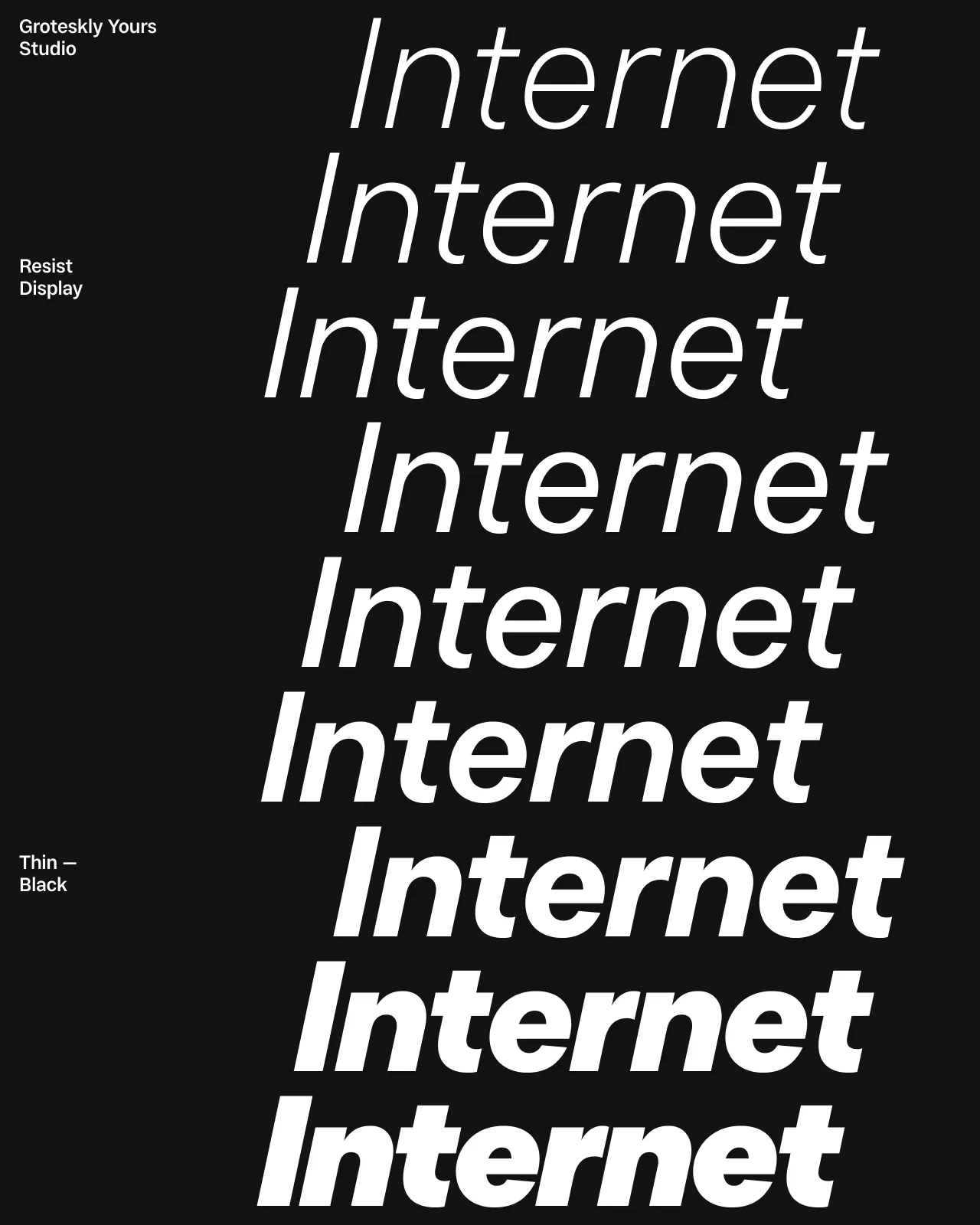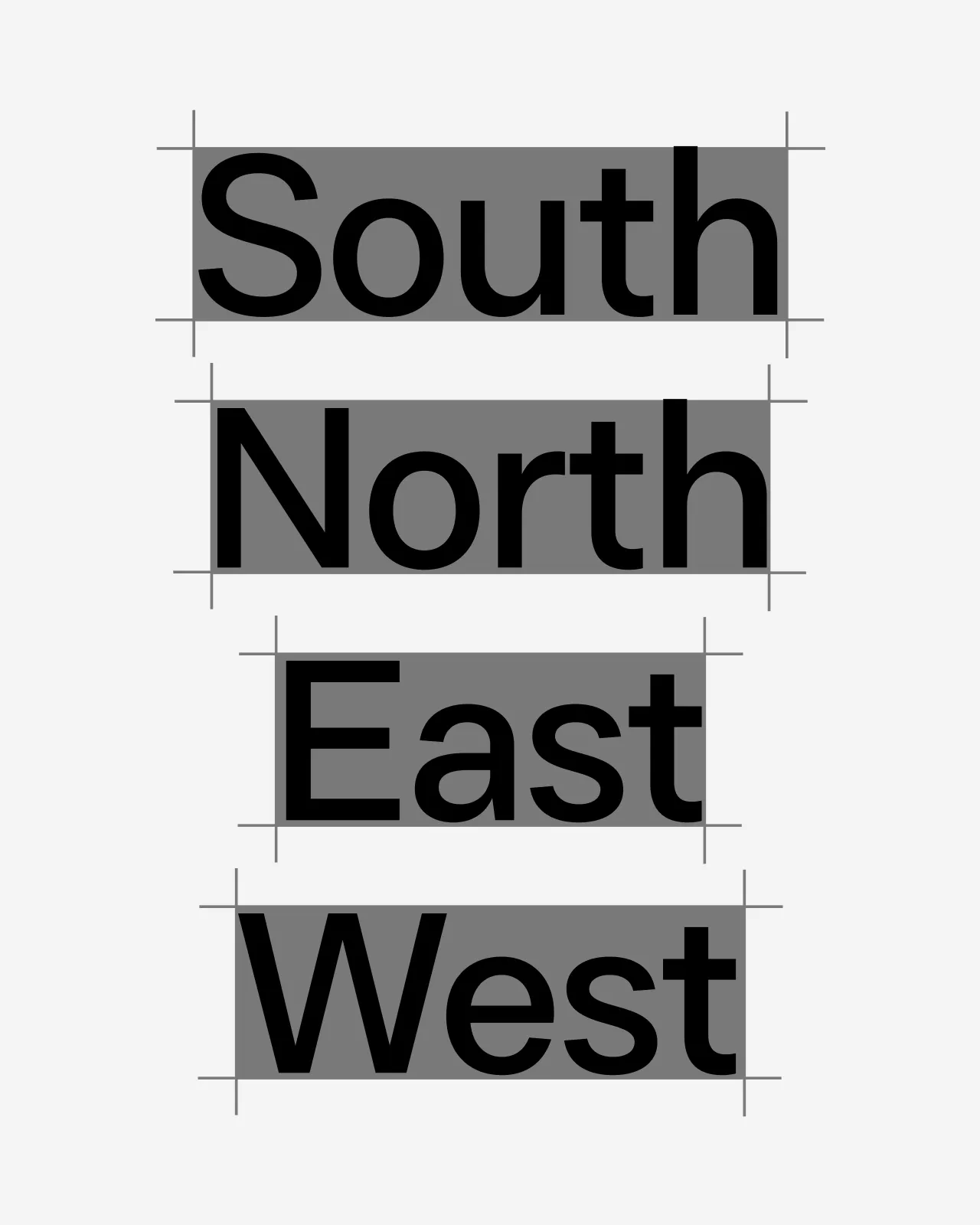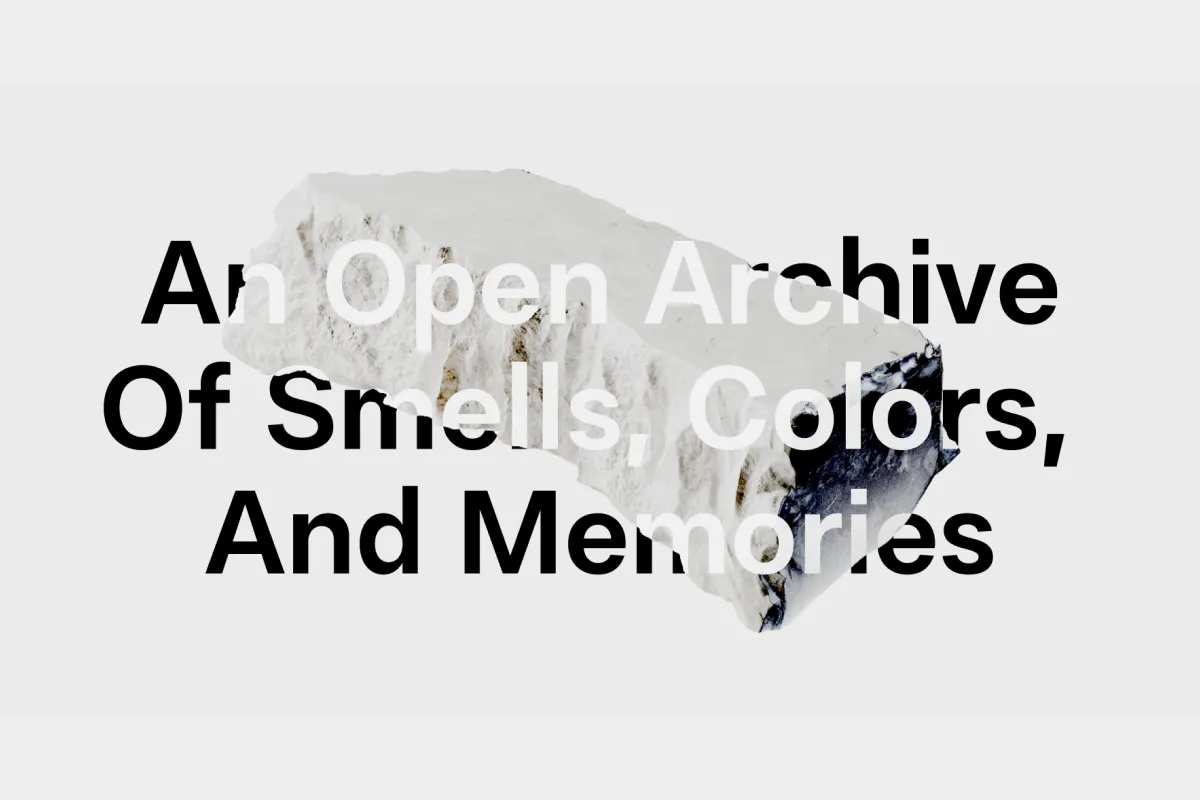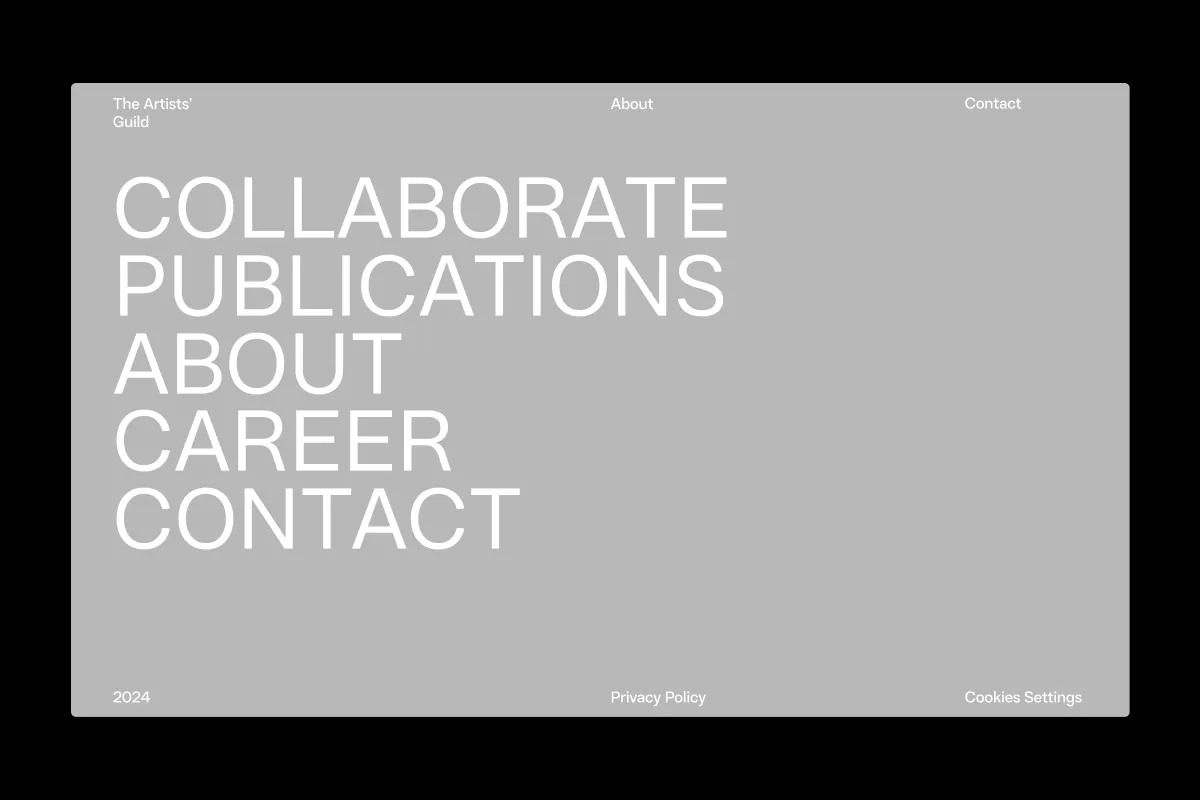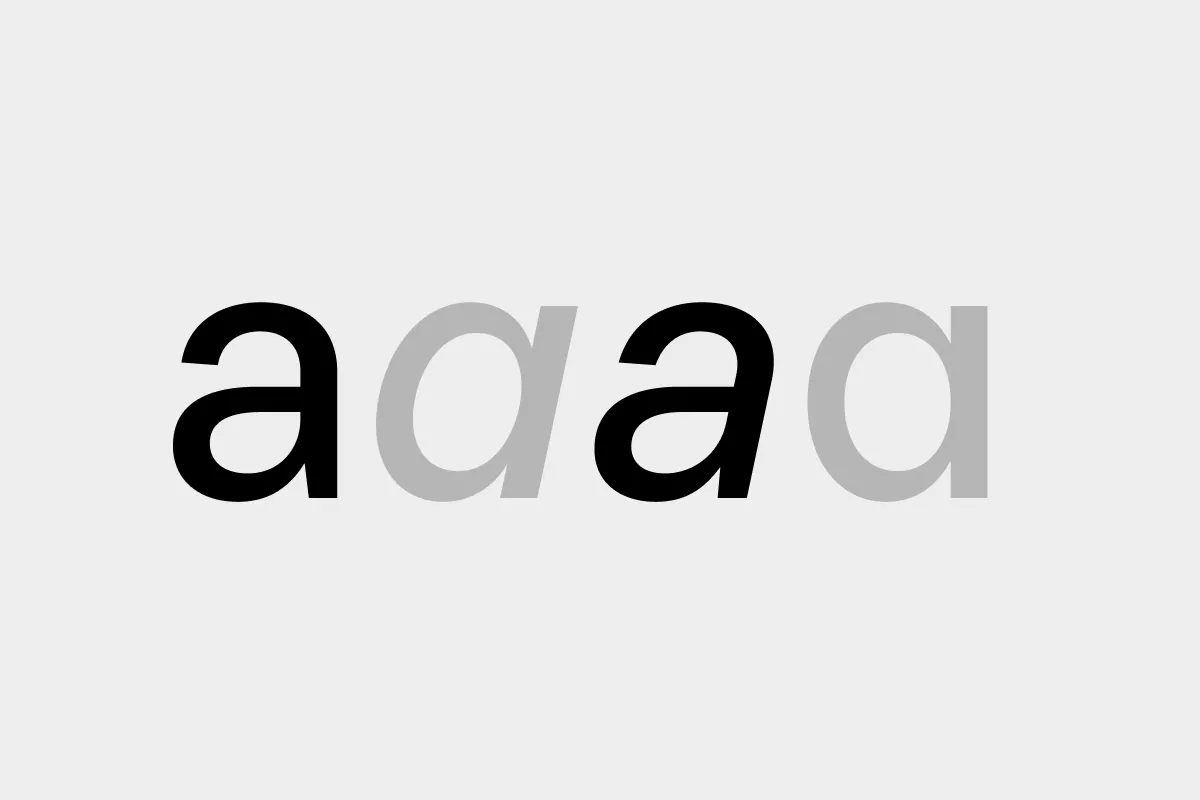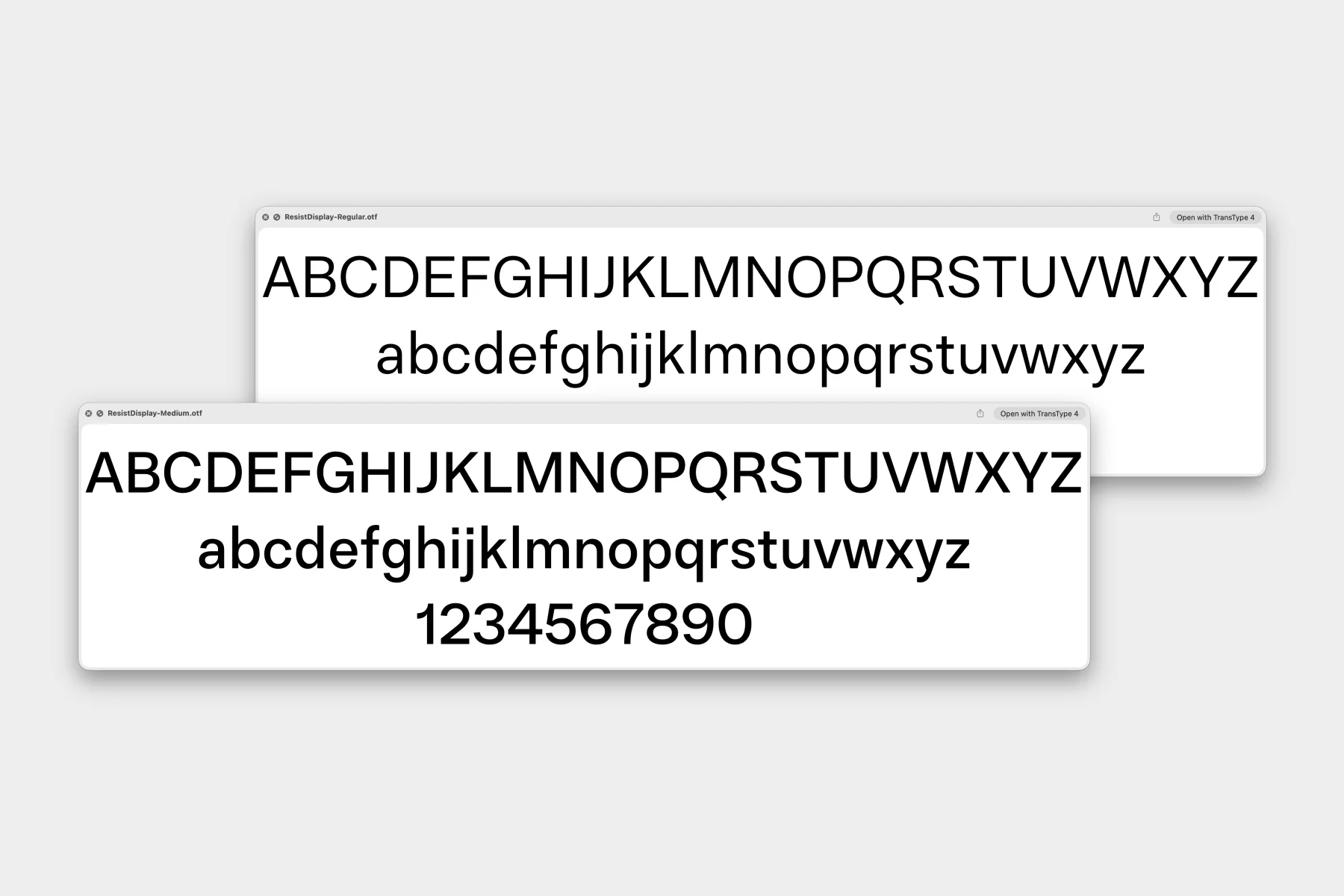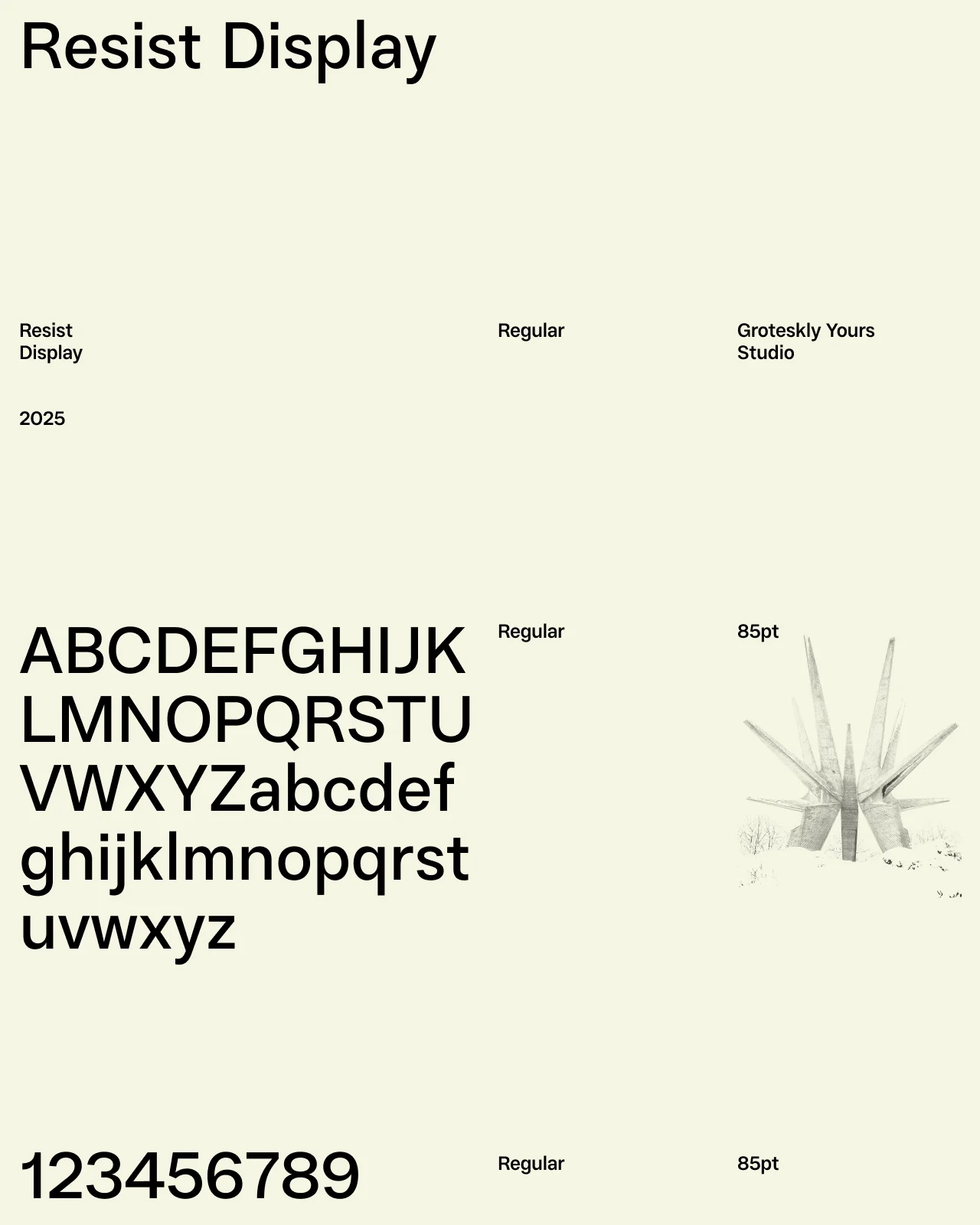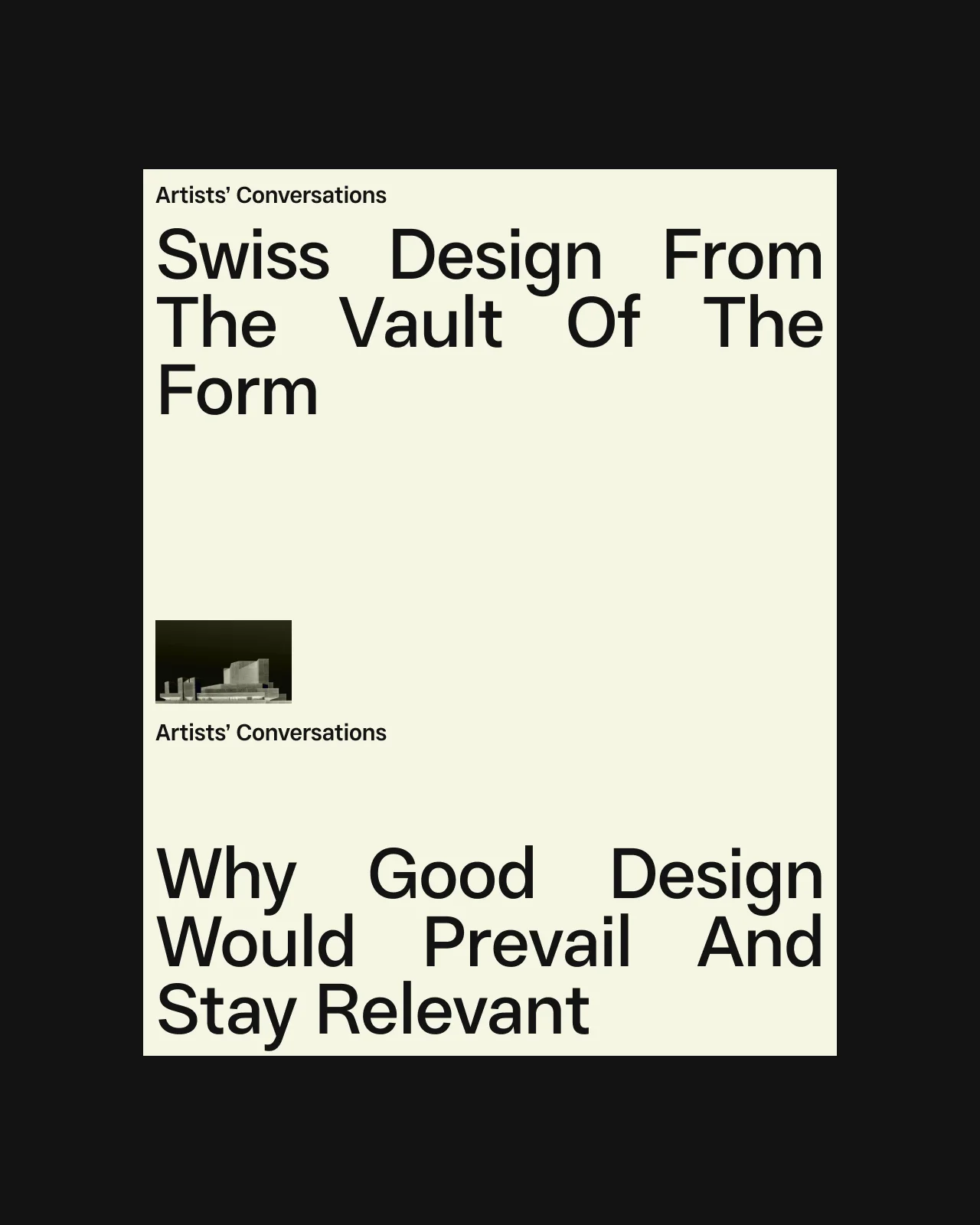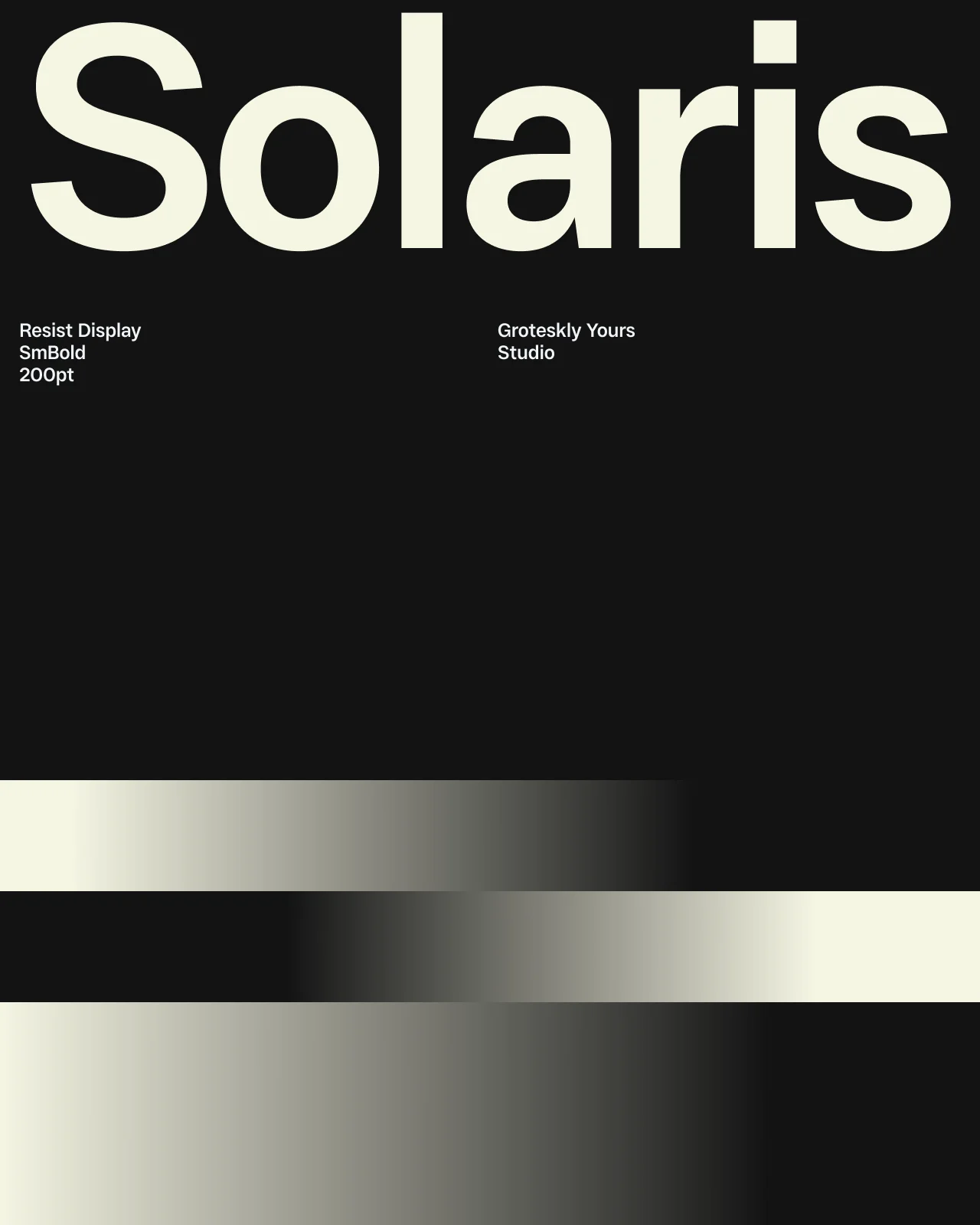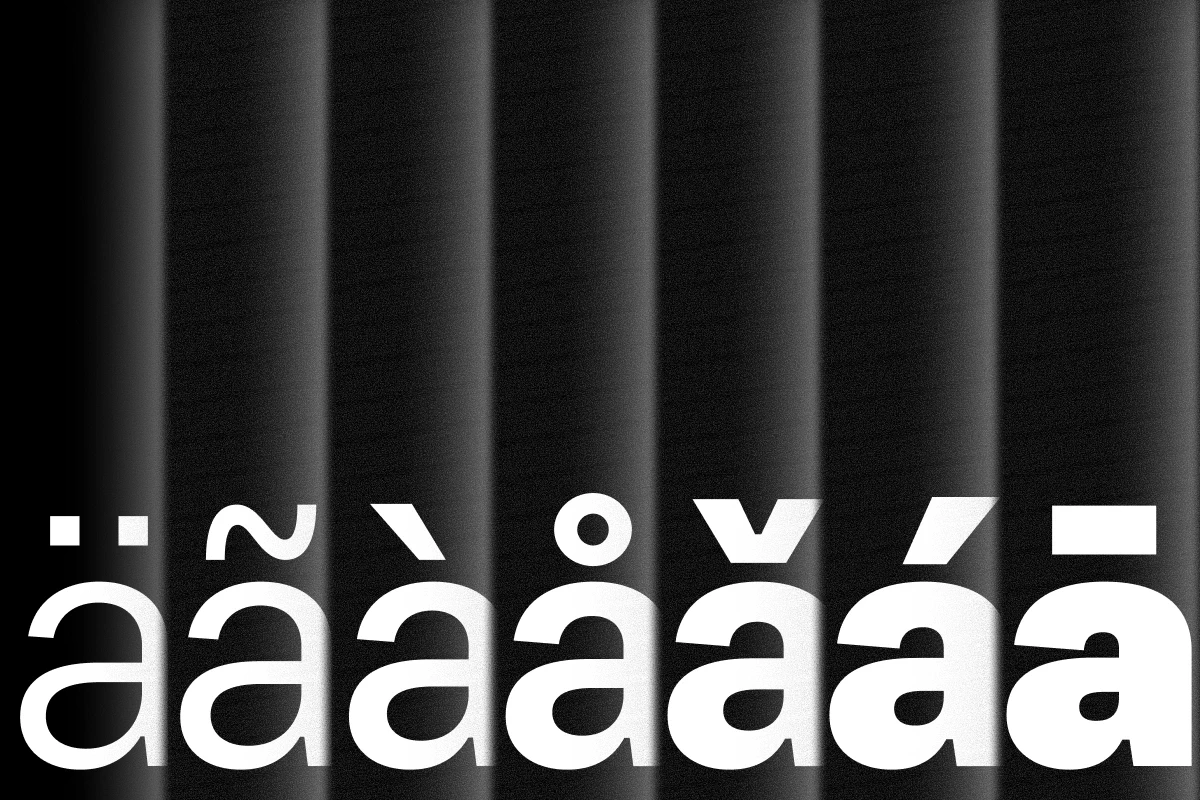
Resist Sans Display
Resist Sans Display is a workhorse sans serif type family designed in the Swiss typographic tradition. Resist Sans Display features a clean, modern font aesthetic, functioning smoothly as both a headline and body text font. From eye-catching titles to impactful branding, Resist Sans Display brings clarity and sophistication to every design.
With its precise and legible letterforms, Resist Sans Display is a versatile and reliable tool for typographers and designers. The typeface features a crisp, neutral appearance, smooth terminals, and even rhythm in any point size. Its modern design makes it a go-to choice for print and digital applications, including advertising, editorial design, and web interfaces. Additionally, Resist Sans Display supports a wide range of European and Latin languages, along with Extended Cyrillic, making it an excellent choice for multilingual contexts.
As part of the Resist Sans family, Resist Sans Display is a more refined and universal font family. Its toned-down modern design is particularly well-suited for applications where the typeface is intended to complement rather than overshadow the content. Resist Sans Display is an excellent choice for headlines, titles, and branding materials where subtle elegance and modernity are essential.
Eugene Tantsurin, Anna Remm